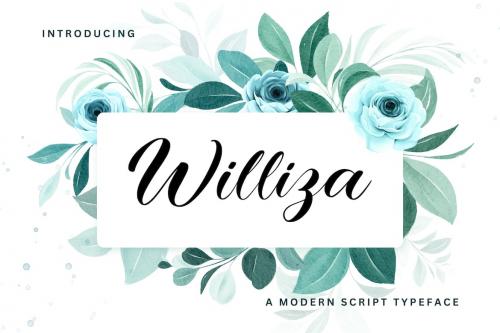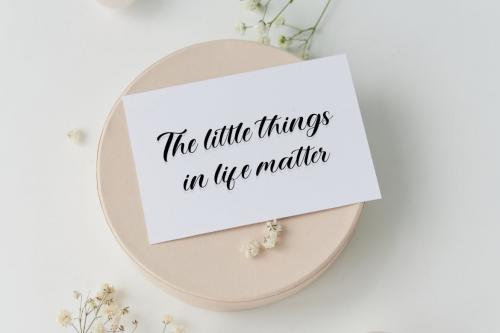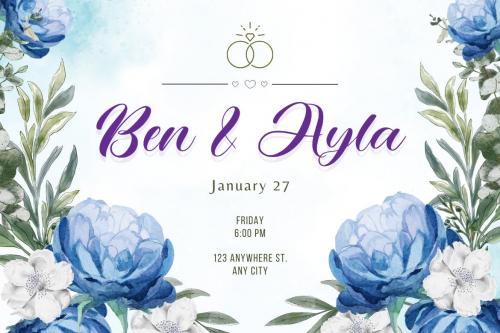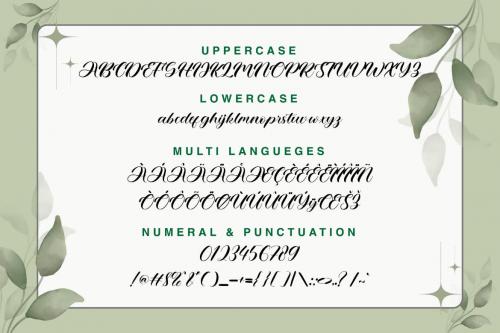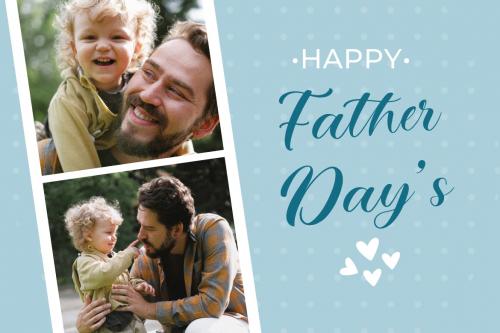
Williza is a contemporary script typeface that embodies elegance and sophistication, making it an excellent choice for a wide range of design projects. With its graceful curves and stylish flourishes, Williza adds a touch of timeless refinement to any text or headline.
Whether you're creating wedding invitations, greeting cards, or branding materials, Williza's modern aesthetic and classic charm will elevate your designs and give them an air of polished grace. Embrace the beauty of simplicity and elegance with Williza, and let your designs exude a sense of sophistication and enduring style.
Discover the perfect blend of modern design and timeless elegance with Williza, the script typeface that adds a touch of refinement and grace to any project. From elegant wedding stationery to luxurious branding materials, Williza's versatile style and classic appeal make it an excellent choice for designers looking to create designs that stand the test of time. With its flowing lines and sophisticated details, Williza brings a sense of grace and beauty to every word and every project, ensuring that your designs leave a lasting impression of elegance and sophistication.